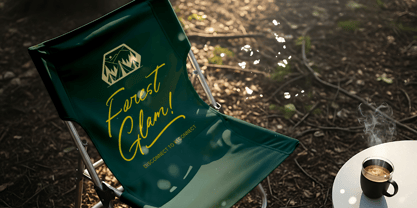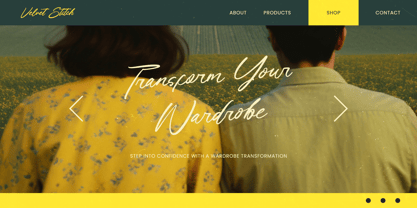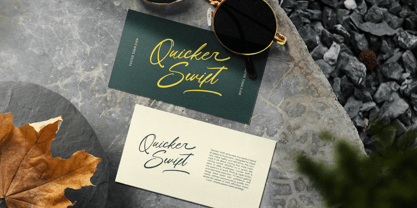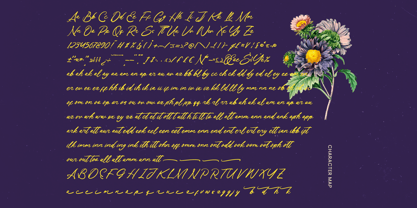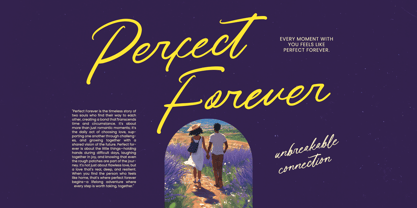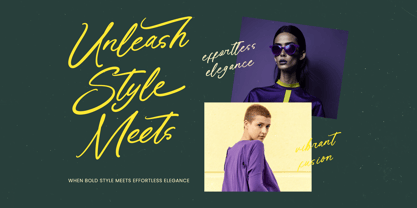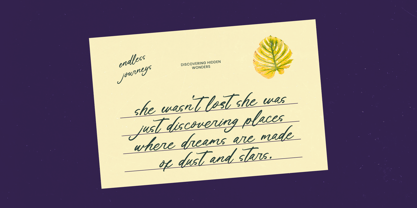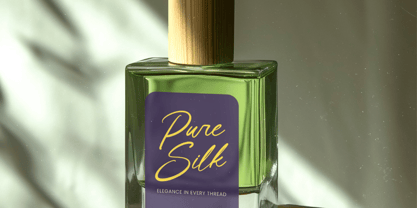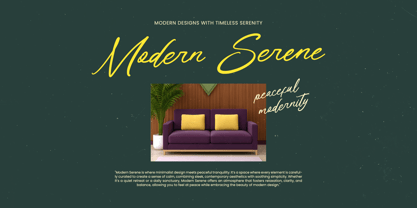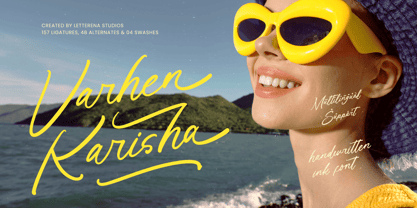
Varhen Karisha
La familia tipográfica Varhen Karisha fue diseñada por Heru Utama Putra y publicada por Letterena Studios. Varhen Karisha contiene 2 estilos y opciones de paquete familiar. Más información sobre esta familia
Varhen Karisha is a modern handwritten ink font designed with smooth flowing strokes and natural signature-style movement. The letterforms feel spontaneous and expressive, capturing the authenticity of real handwriting while maintaining clarity for bold display use. Its long, elegant swashes and dynamic stroke rhythm give every word a confident and artistic presence. The style blends casual charm with modern sophistication, making it perfect for fashion branding, lifestyle visuals, beauty campaigns, and editorial layouts. Varhen Karisha comes with 157 ligatures, 48 stylistic alternates, and 4 swashes, allowing you to create seamless lettering combinations and unique compositions. With full multilingual support, this font is ready for global branding projects and versatile design applications. If you're looking for a handwritten ink font that feels stylish, energetic, and expressive, Varhen Karisha delivers strong personality with premium detail.